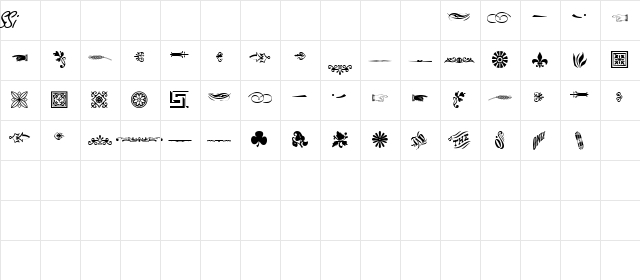
WoodcutOrnamentsTwoSSK Regular Font Preview
WoodcutOrnamentsTwoSSK Regular
Design Context for WoodcutOrnamentsTwoSSK Typeface
WoodcutOrnamentsTwoSSK echoes the hand-painted signage and woodblock typography of the American frontier, with a warm, rugged personality.
Perfect for barbecue restaurants, country music branding, vintage poster design, and rustic packaging.
Font Pairing: Combine WoodcutOrnamentsTwoSSK with a simple slab or neutral sans — period-accurate companions reinforce the vintage feel without competing for attention.
Pro Tip: Pair WoodcutOrnamentsTwoSSK with aged textures or distressed backgrounds to amplify its vintage personality.